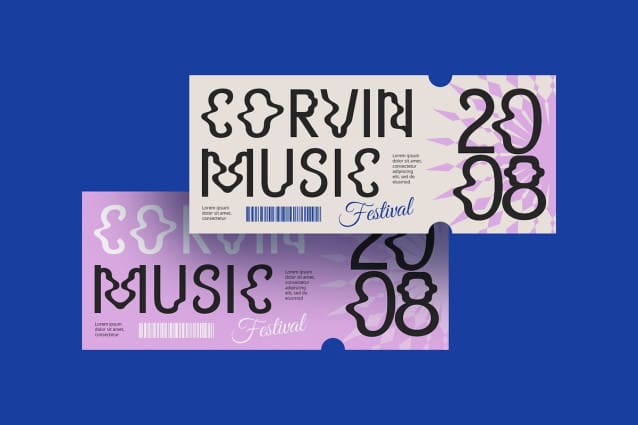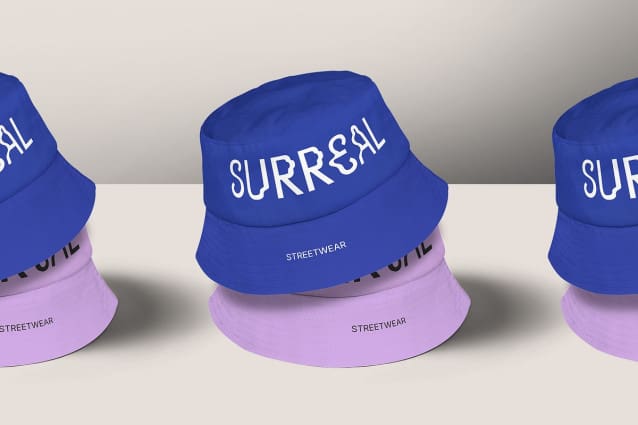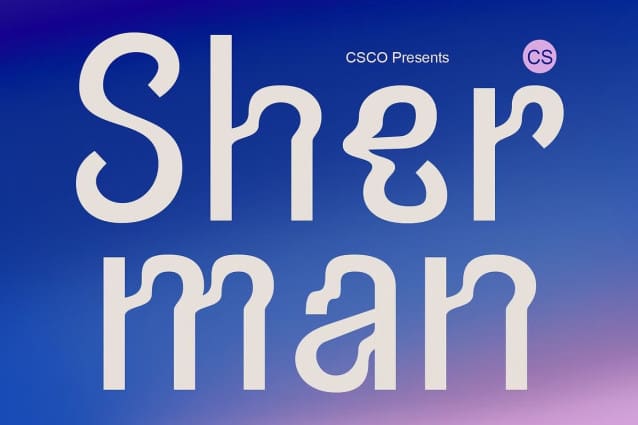
CS Sherman Font
CS Sherman Font is a modern sans-serif display font with trippy, psychedelic-inspired forms that push the boundaries of conventional typography. Its curving lines, warped shapes, and ever-changing letter structures create an irregular yet harmonious design. While the font lacks serifs, it compensates with bold, funky forms that radiate energy and playfulness.
A Funky and Joyful Impression This font exudes creativity, freedom, and an unmistakable sense of joy. Its whimsical and eccentric style is designed to grab attention and evoke a sense of artistic expression. Whether used in vibrant color schemes or experimental layouts, CS Sherman ensures that the design feels alive and full of character.
Perfect for Artistic and Experimental Projects CS Sherman is an excellent choice for music posters, festival promotions, album covers, and any creative project that aims to stand out. It adds a dynamic, energetic vibe that amplifies the visual impact, making it perfect for designs that embrace individuality and boldness.
Unleash a Psychedelic Atmosphere With its unique forms and lively personality, CS Sherman brings a fresh, imaginative touch to any design concept. It’s the go-to font for projects that dare to be different, delivering an unforgettable visual experience that captures the essence of trippy artistry.